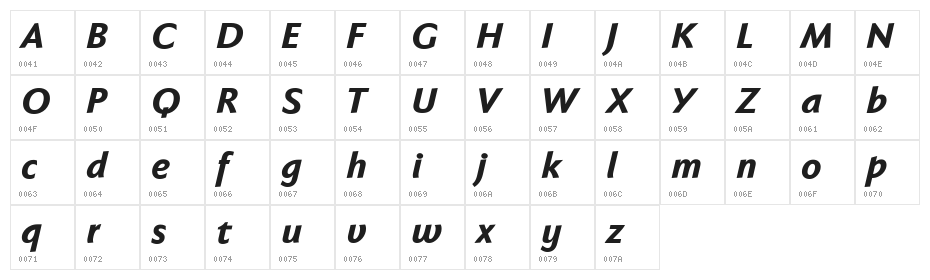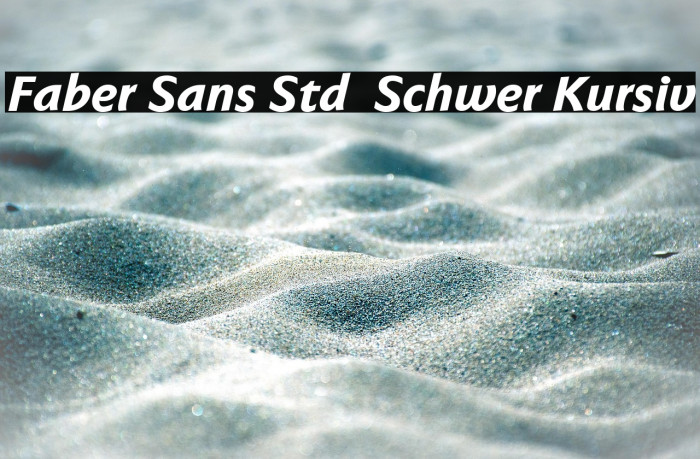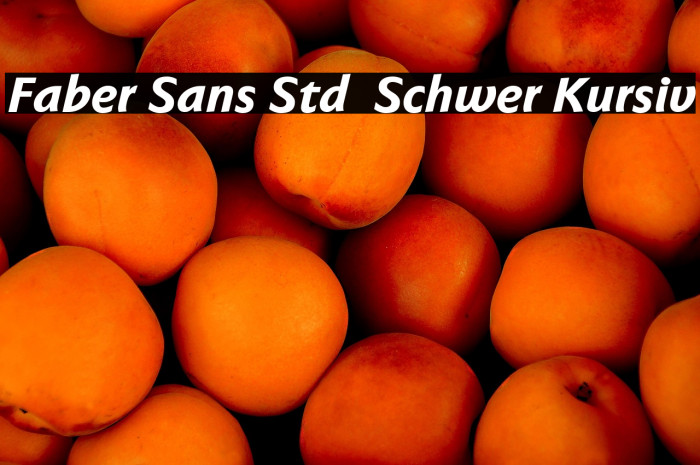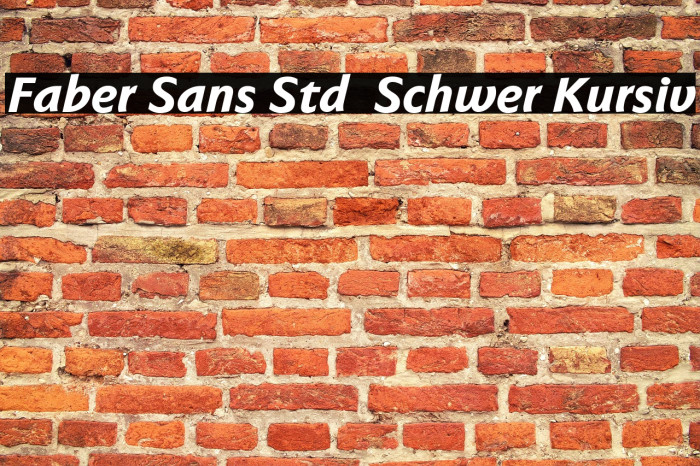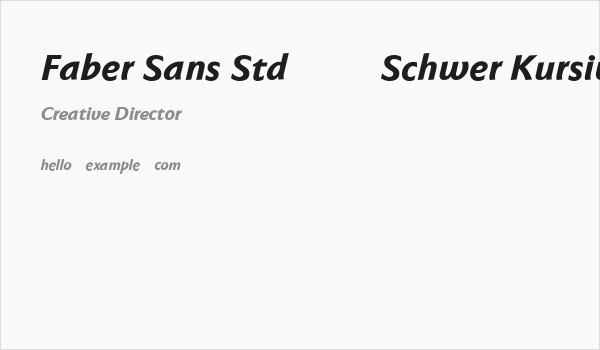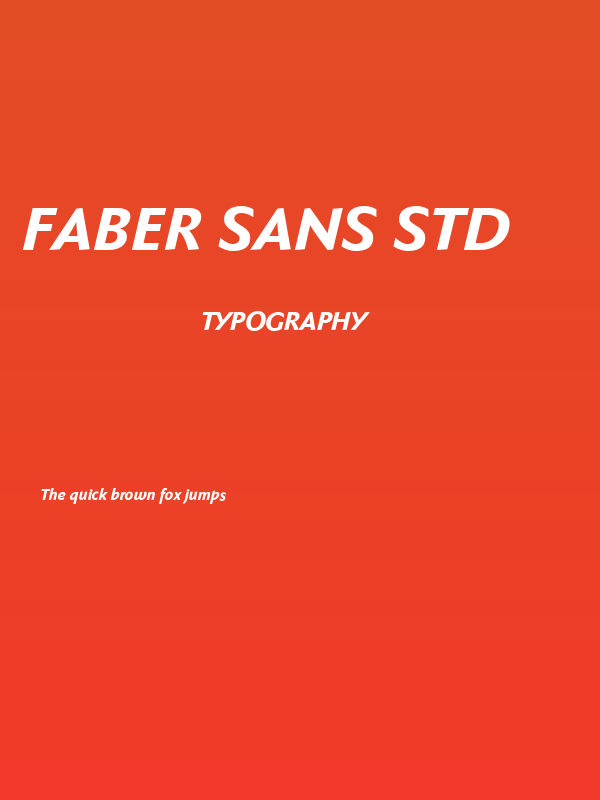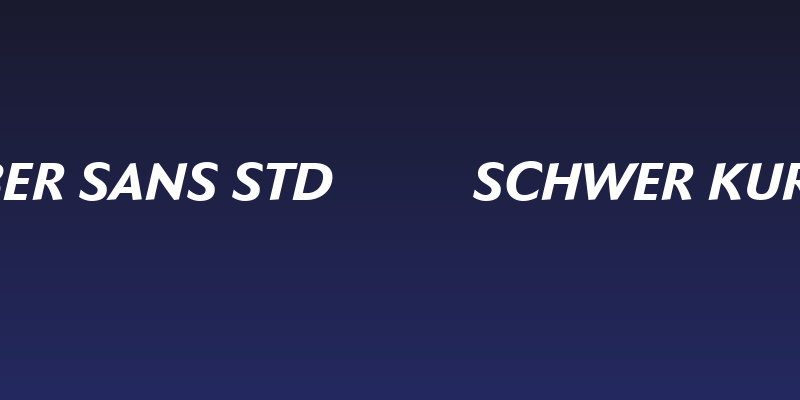
Faber Sans Std 86 Schwer Kursiv Font
Faber Sans Std 86 Schwer Kursiv Description
This font exhibits a bold and assertive style with a strong presence. The characters are slightly condensed, enhancing their impact while maintaining readability. The italic slant adds a dynamic and forward-moving feel, making it suitable for conveying energy and motion. The strokes are consistent in thickness, providing a uniform appearance across all characters. The overall design is modern and clean, with a focus on clarity and legibility. The font's structure is well-suited for both digital and print applications, ensuring versatility in various design contexts.
| Proposed Projects | Ideal for branding, advertising, headlines, and editorial design where a strong and modern impression is needed. |